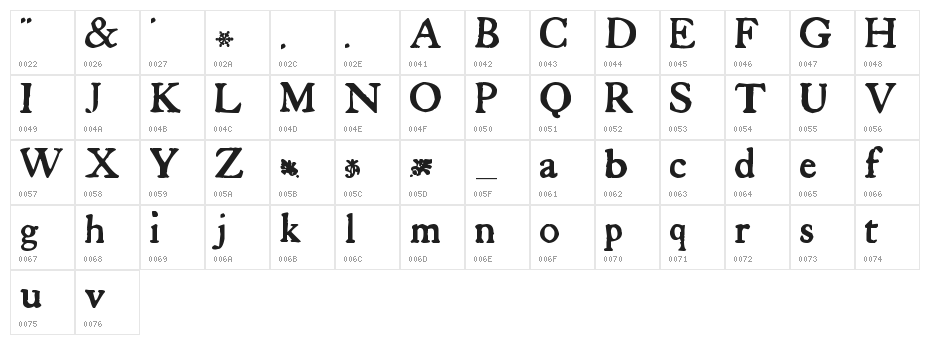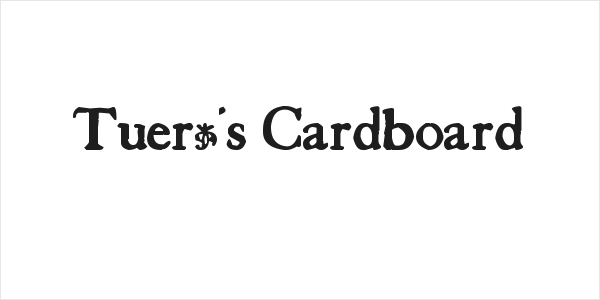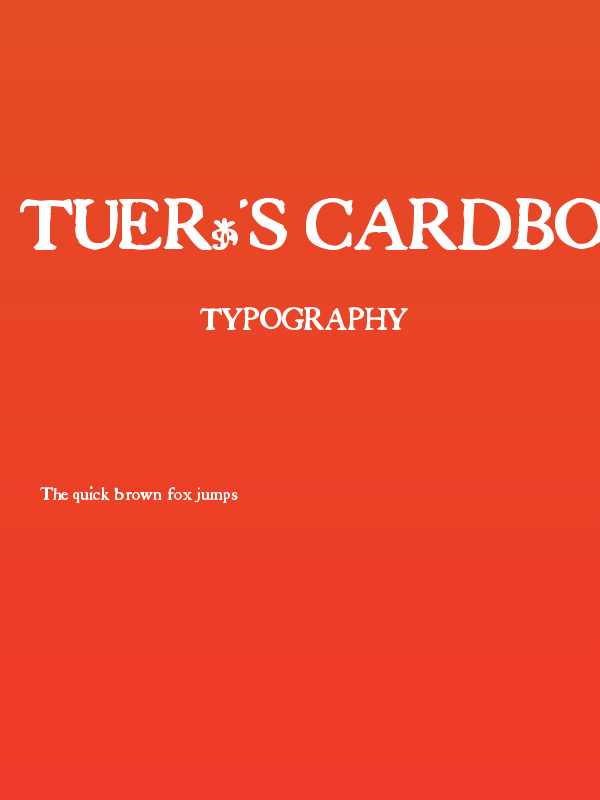
Tuer's Cardboard Font
✎ Distorted Eroded
| Proiecte propuse | Ideal for posters, album covers, craft projects, and any design needing a rustic, artistic touch. |